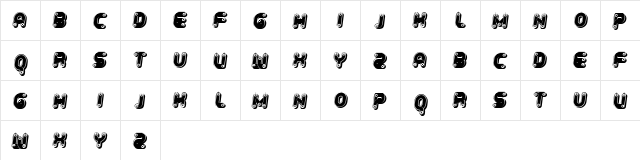
Ambis Italic Font Preview
Ambis Italic
Design Context for Ambis Typeface
Ambis is a composed and adaptable typeface that performs quietly and consistently across a wide range of design contexts. The slanted form adds forward momentum and visual energy.
Pro Tip: Try Ambis for annotation and caption copy alongside an upright companion — the contrast in angle creates a dynamic but ordered typographic system.